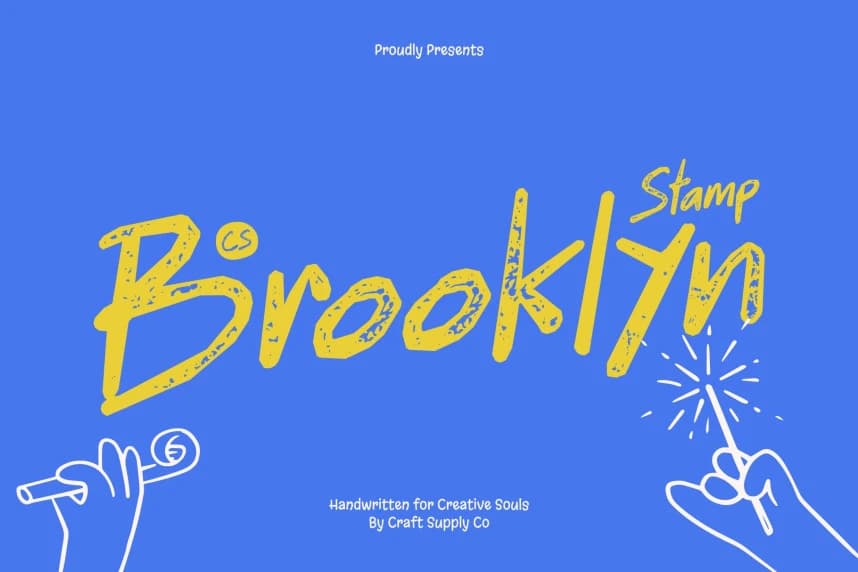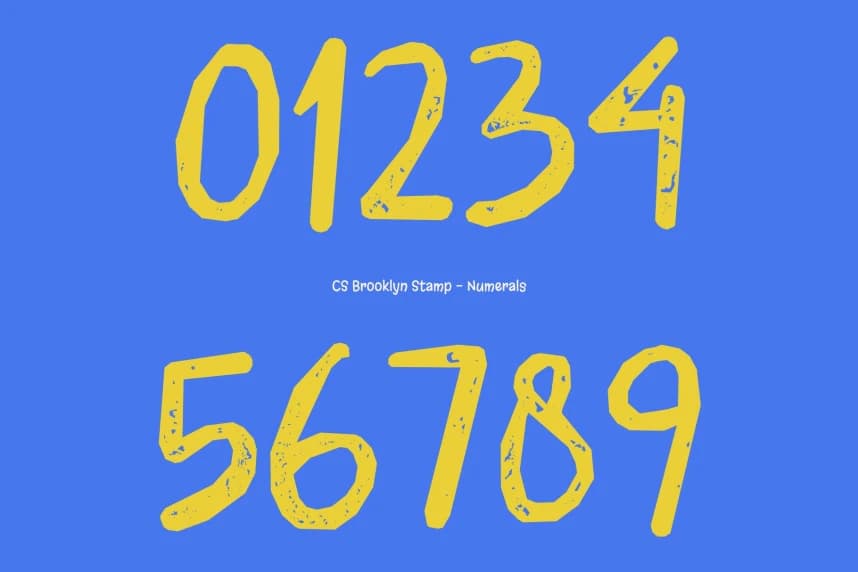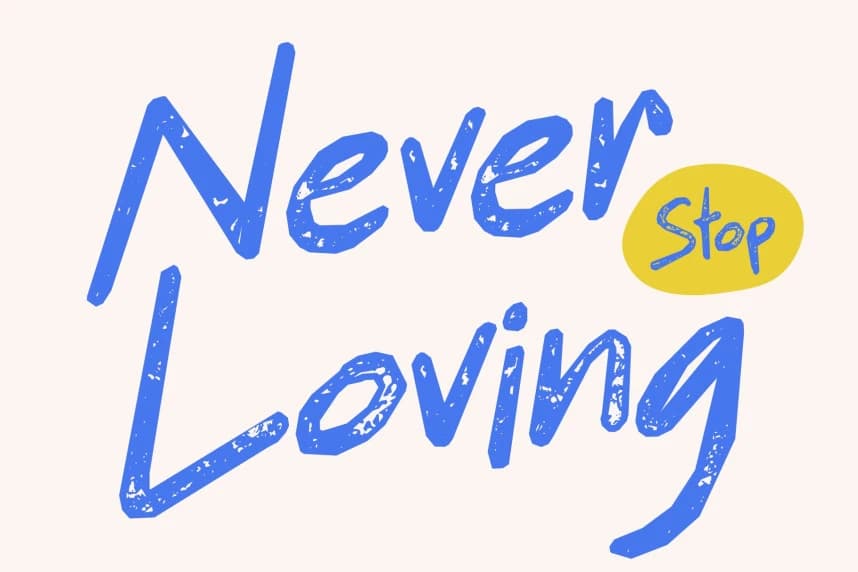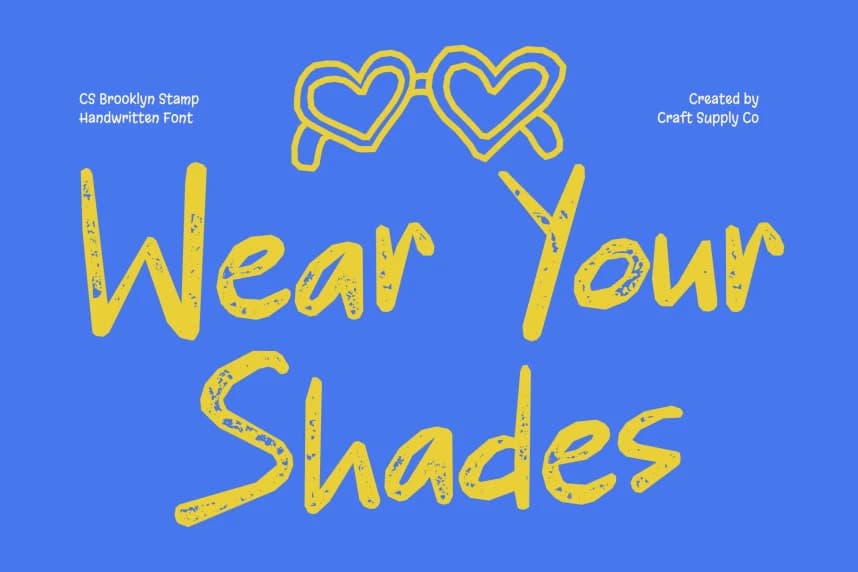
CS Brooklyn Stamp Font
CS Brooklyn Stamp Font – Modern Attitude with Textured Funky Edge Handwritten Font with a Carefree and Stylish Vibe. This is a carefree handwritten font that blends funky energy with a modern sans serif influence.